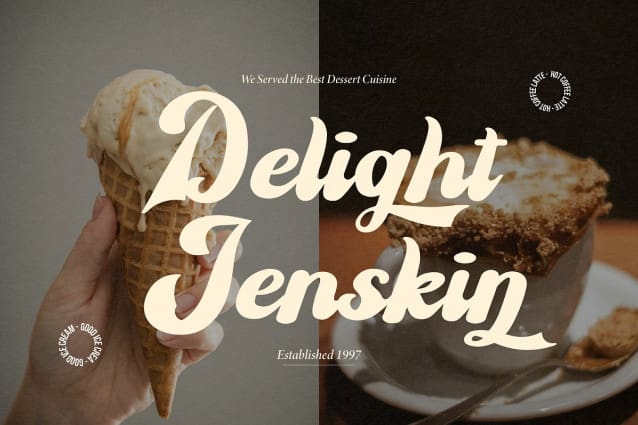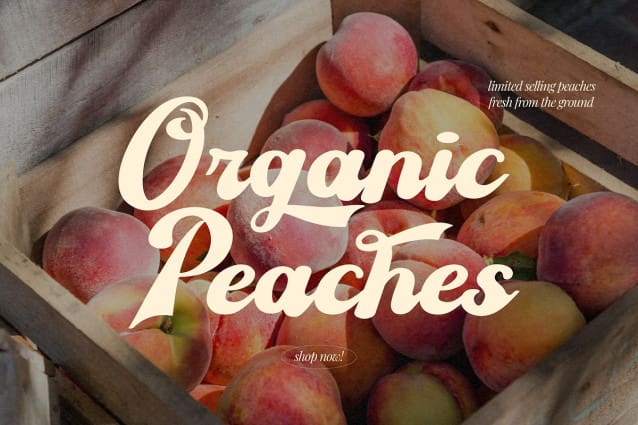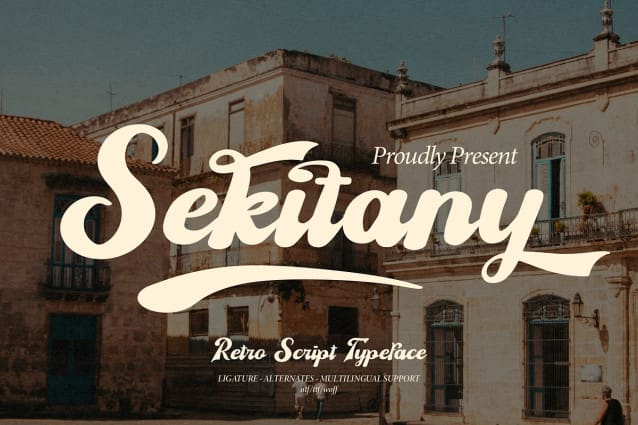
Sekitany Retro Font
Sekitany Retro Font | Retro Script Typeface, from Denustudios, suitable for any projects such as: logos, branding projects, homeware designs, product packaging, mugs, quotes, posters, shopping bags, t-shirts, book covers, name card, invitation cards, greeting cards, label, photography, watermark, special events, and all your other lovely projects that need a Retro Script Typeface taste.